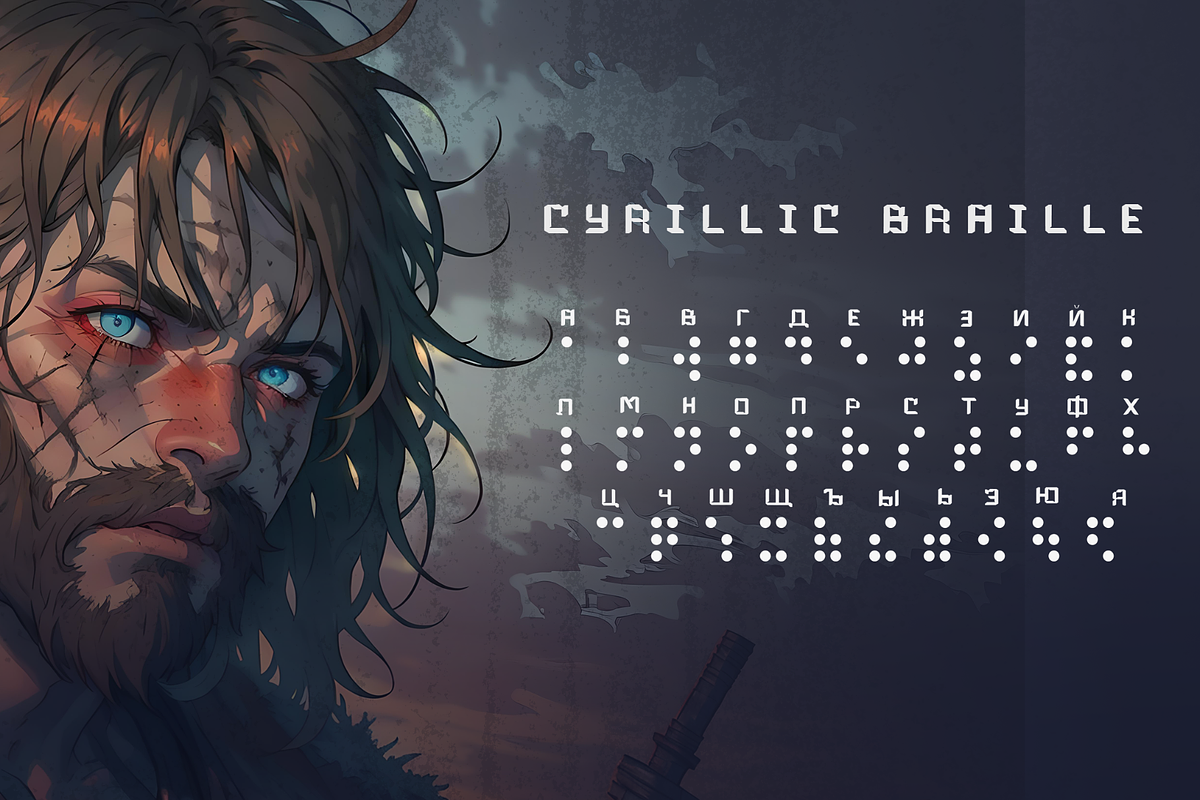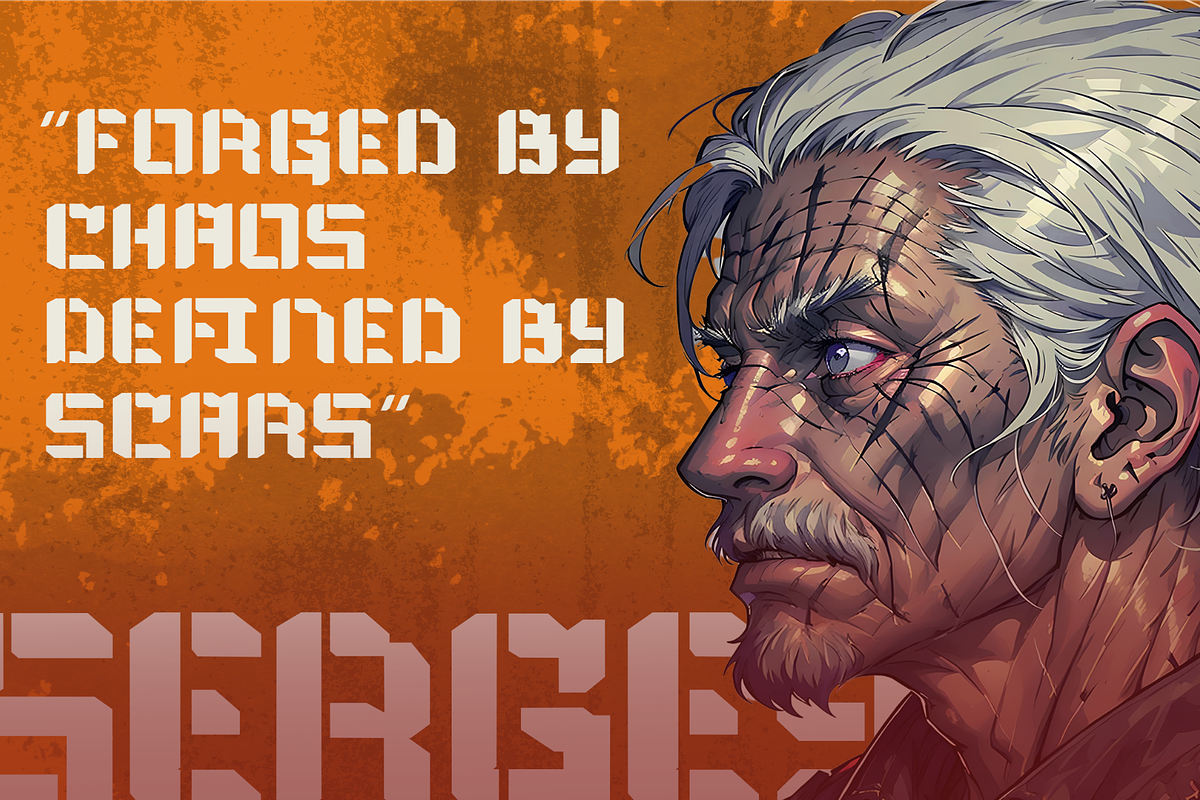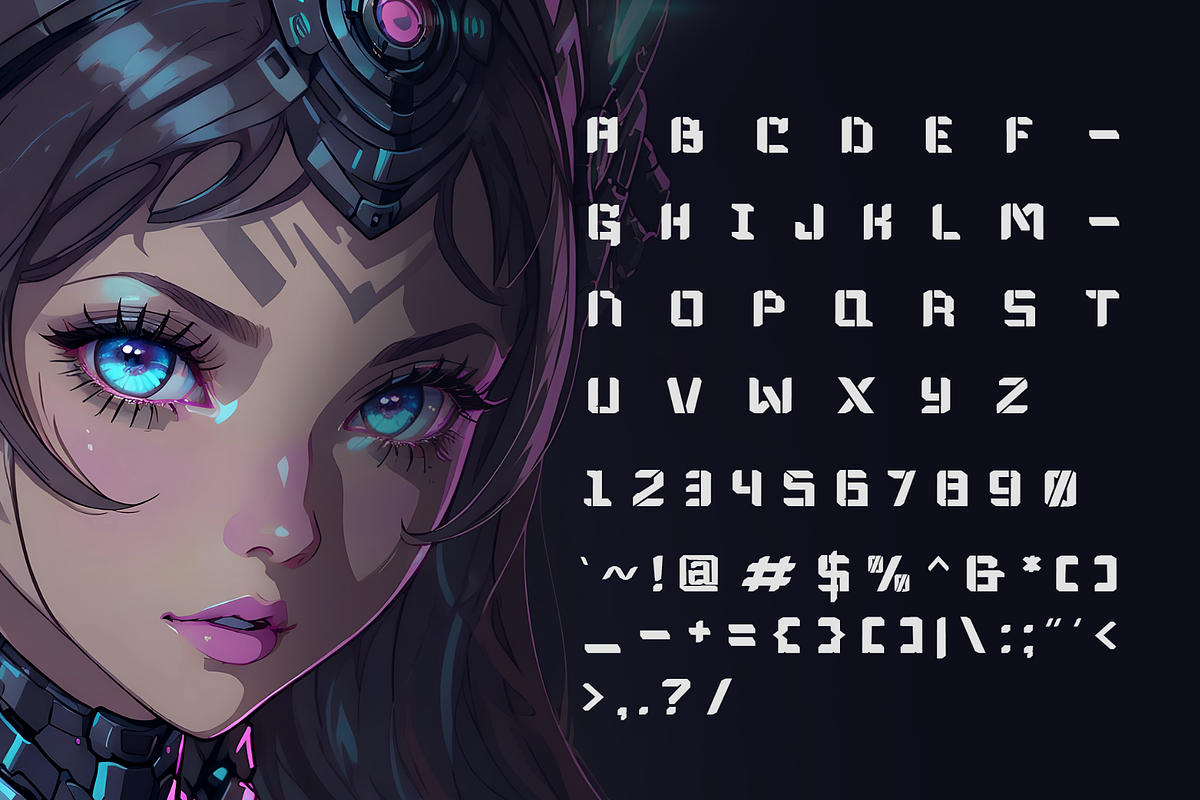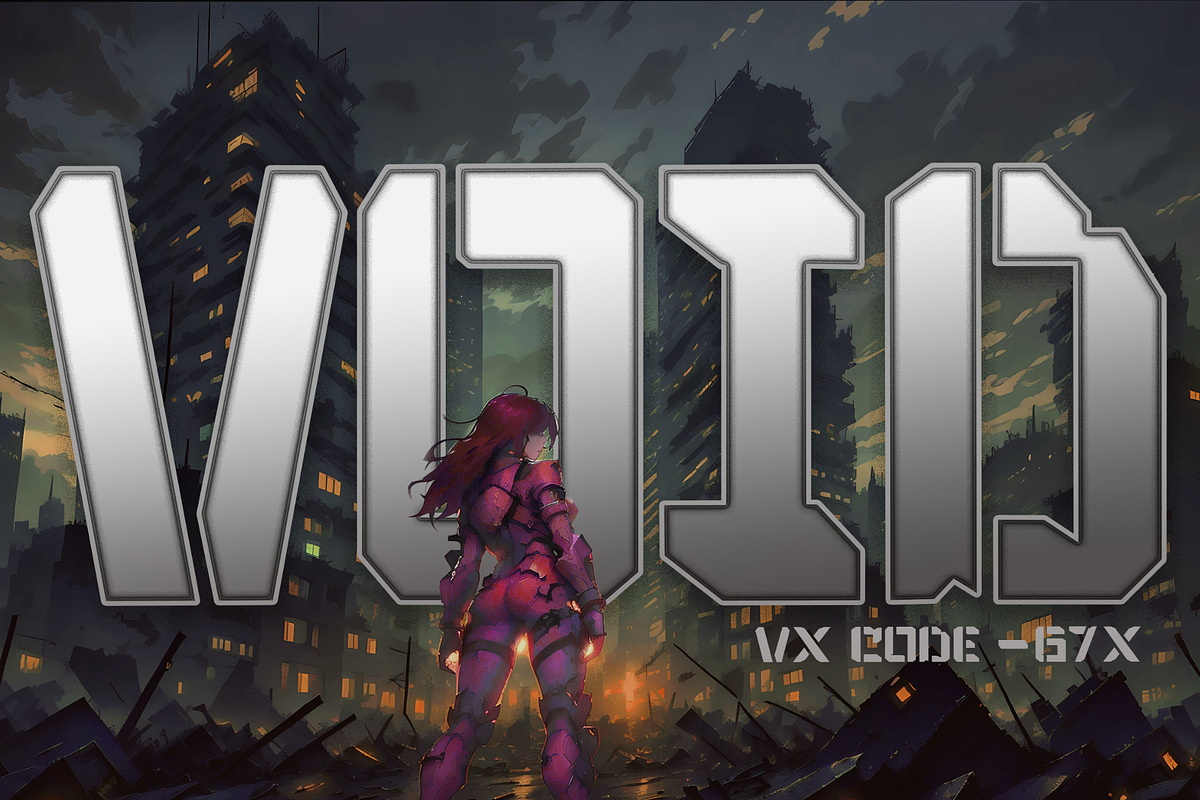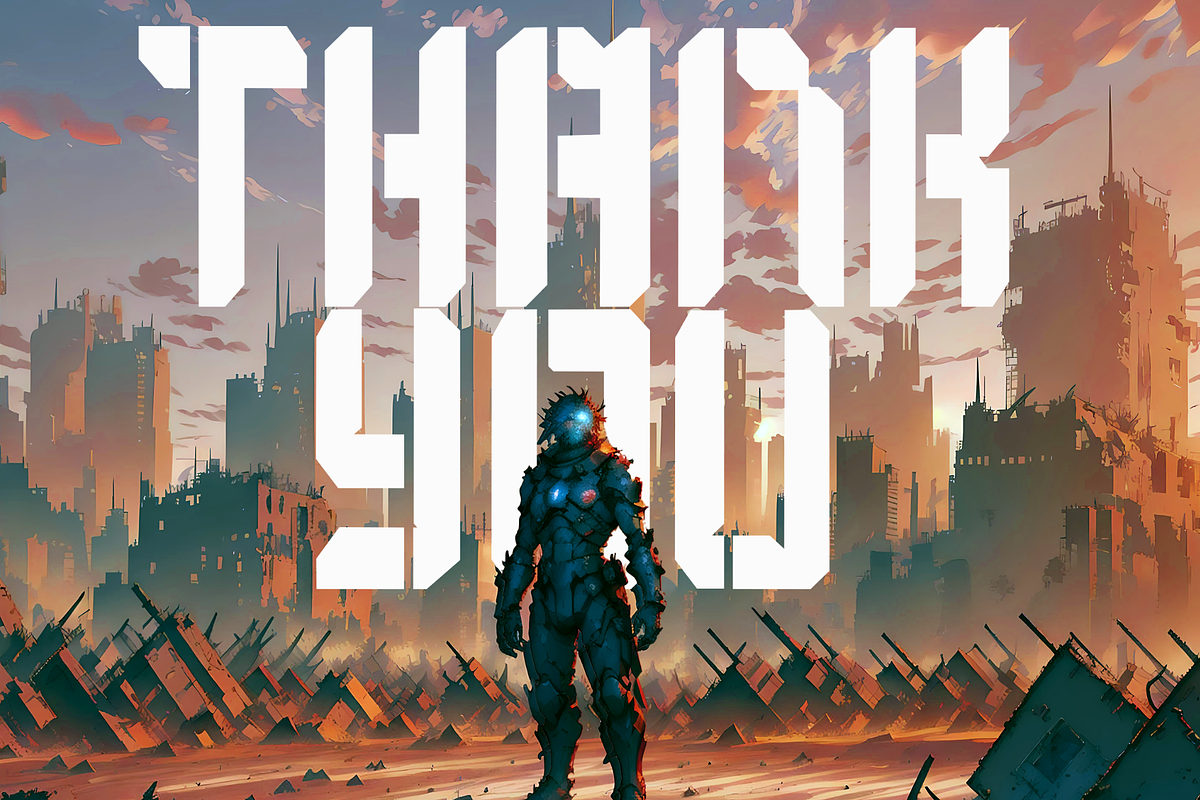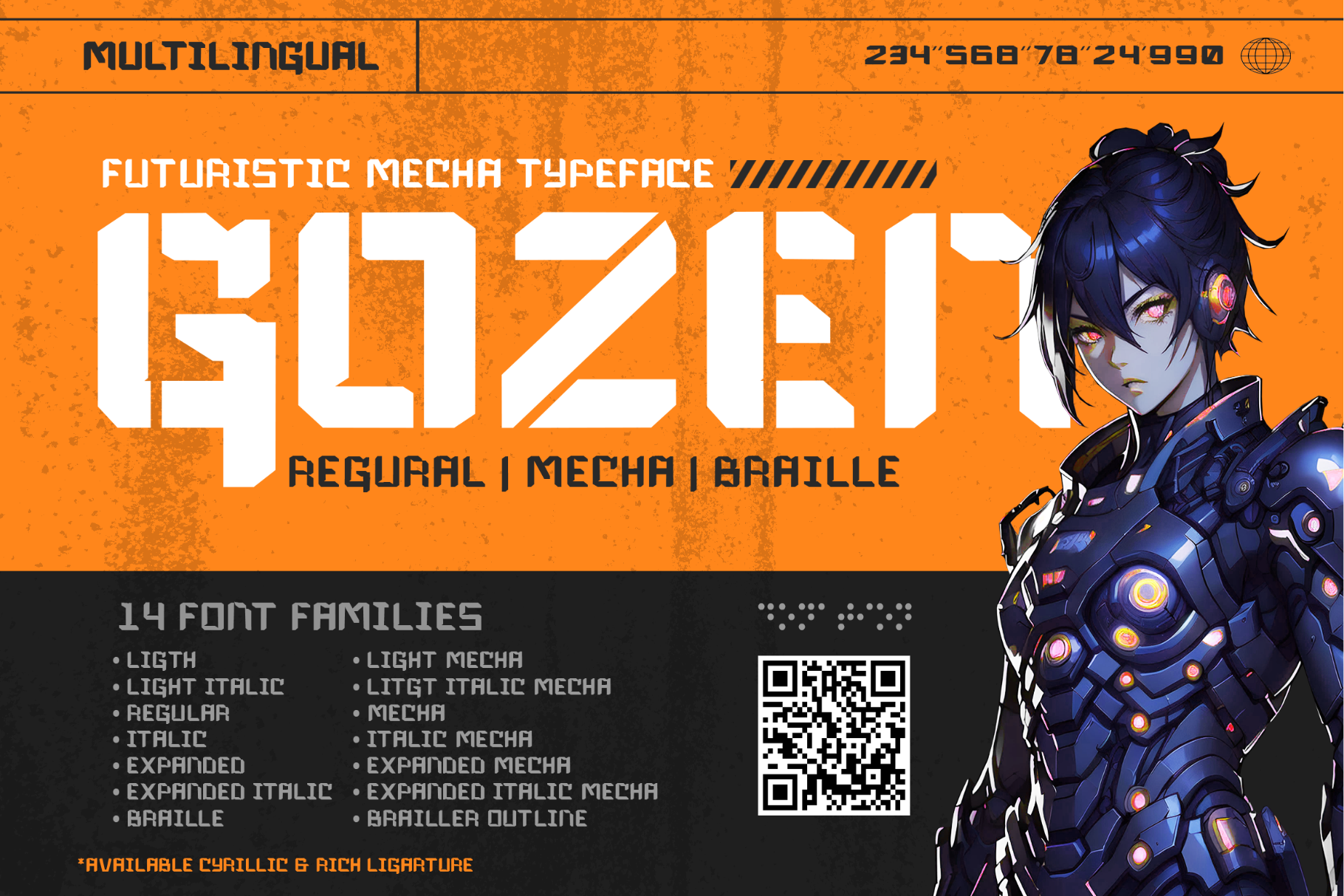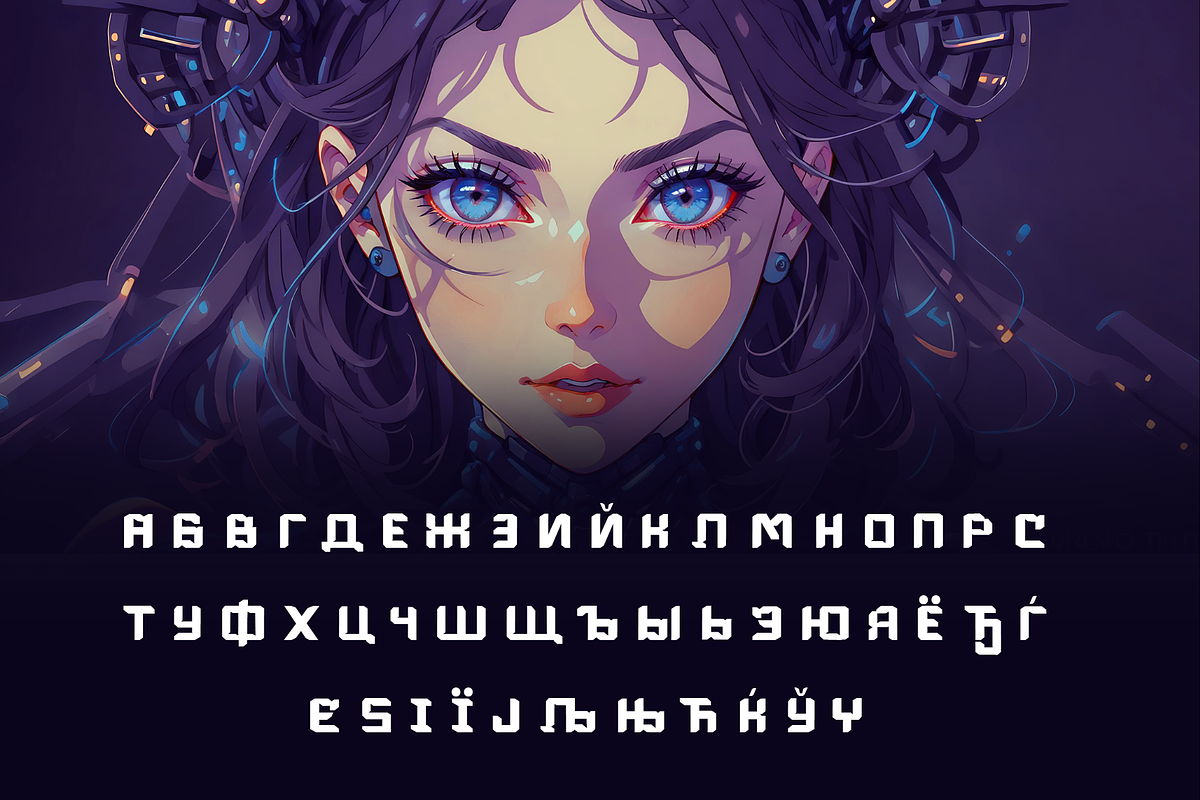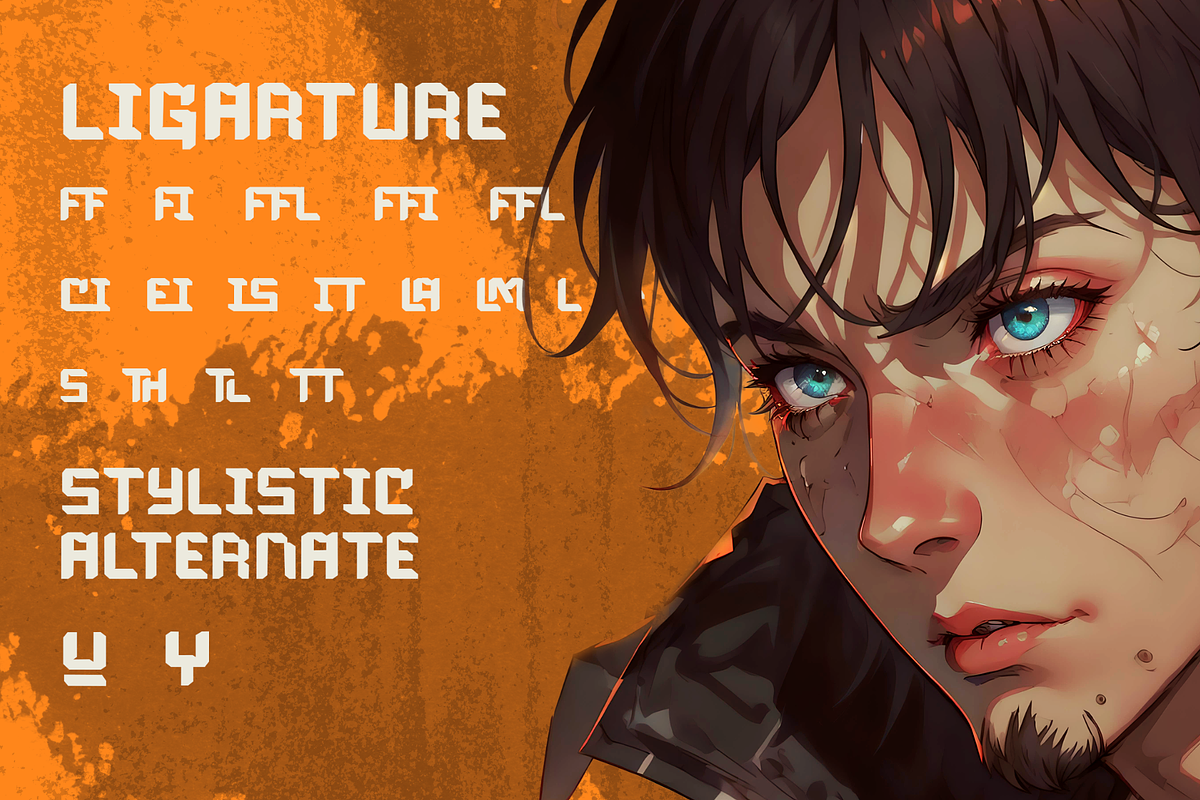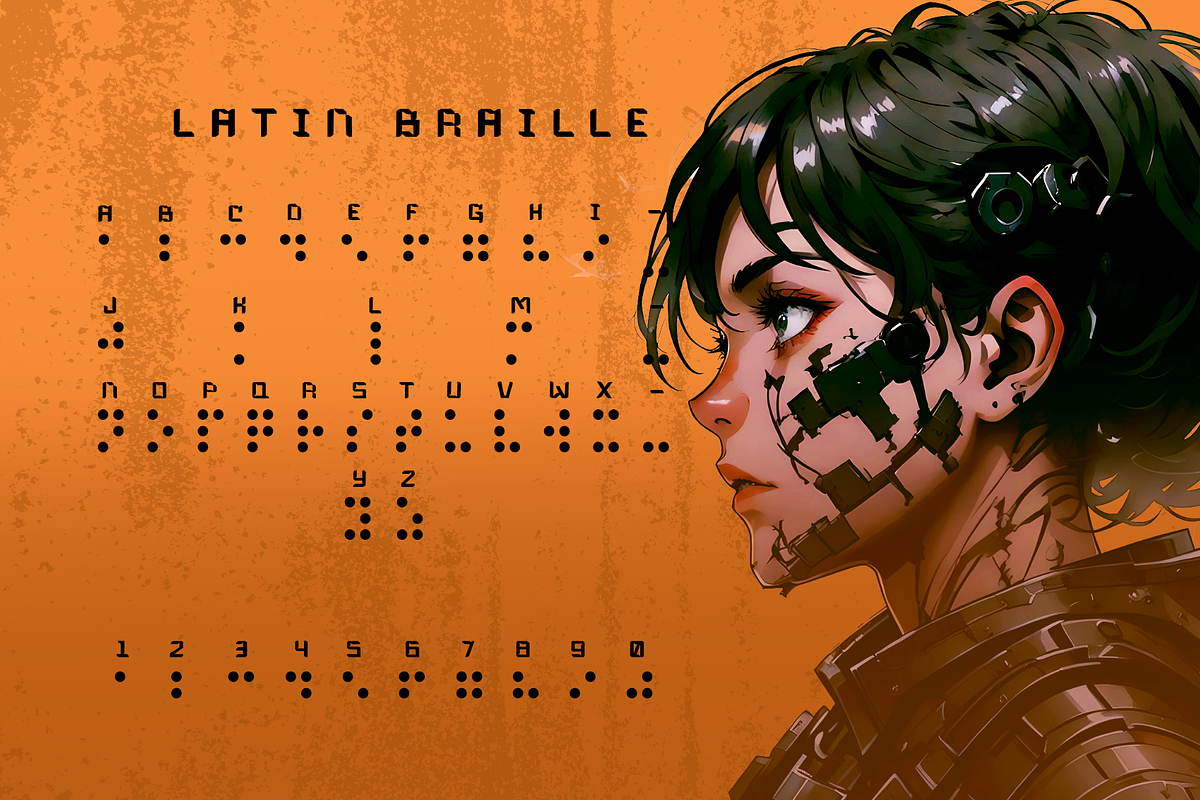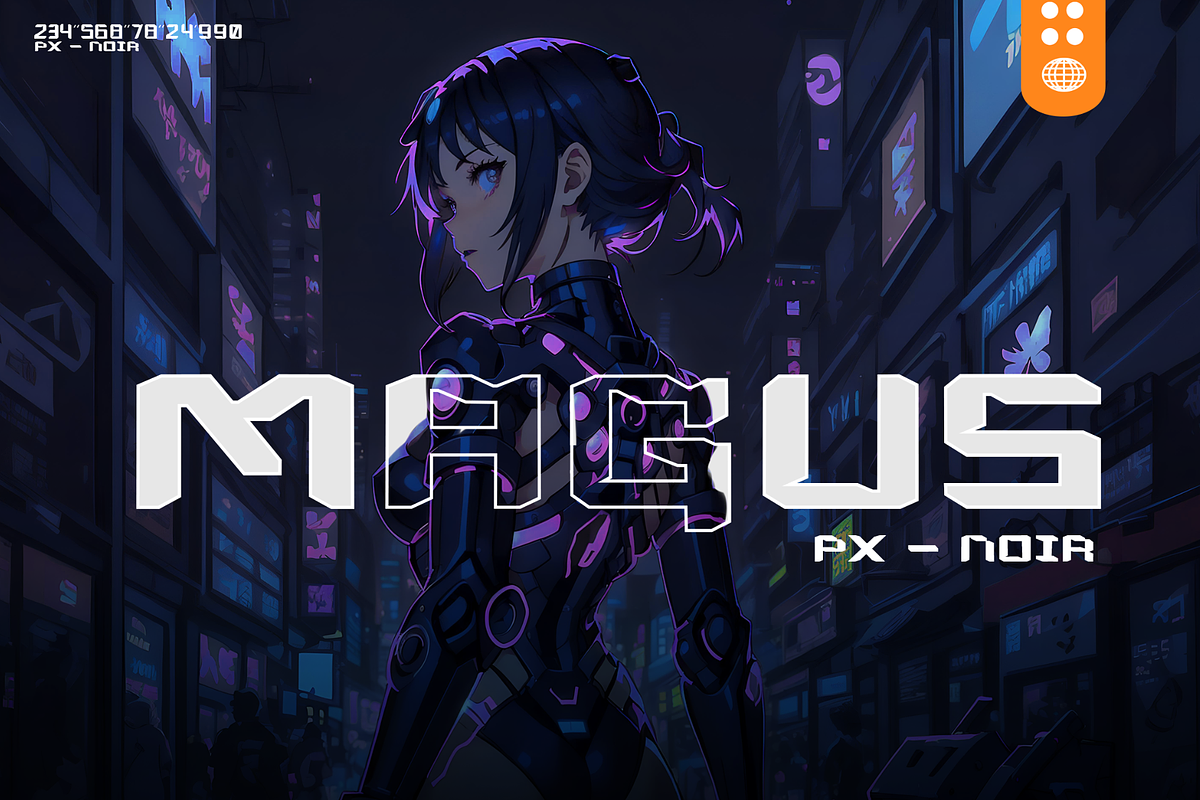
Gozen | Futuristic-Mecha Typeface
Immerse yourself in the world of the future with Gozen, a strikingly bold typeface carefully engineered for contemporary style. Gozen is futuristically designed, yet rooted strongly in the present. With 14 uniquely-styled fonts, and even support for Braille in both Latin and Cyrillic forms, it broadens the horizon of its usability. It also features a one-of-a-kind stencil/mecha variant, making Gozen the versatile typeface to choose. Perfect for creating an unforgettable brand identity, composing captivating gaming interfaces, making headlines pop, jazzing up streetwear designs, stylizing album covers or innovating logo creation - Gozen's remarkable and distinctive style is designed to ensure your message stands out from the crowd. Get ready to grasp the pulse of the future, with Gozen - where daring design meets groundbreaking innovation.